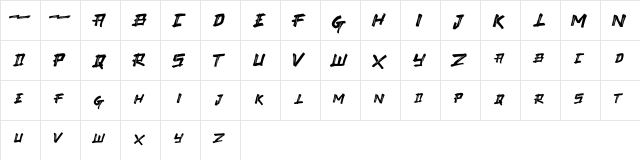
TAKASIH Regular
Design Context for TAKASIH Typeface
TAKASIH is a composed and adaptable typeface that performs quietly and consistently across a wide range of design contexts.